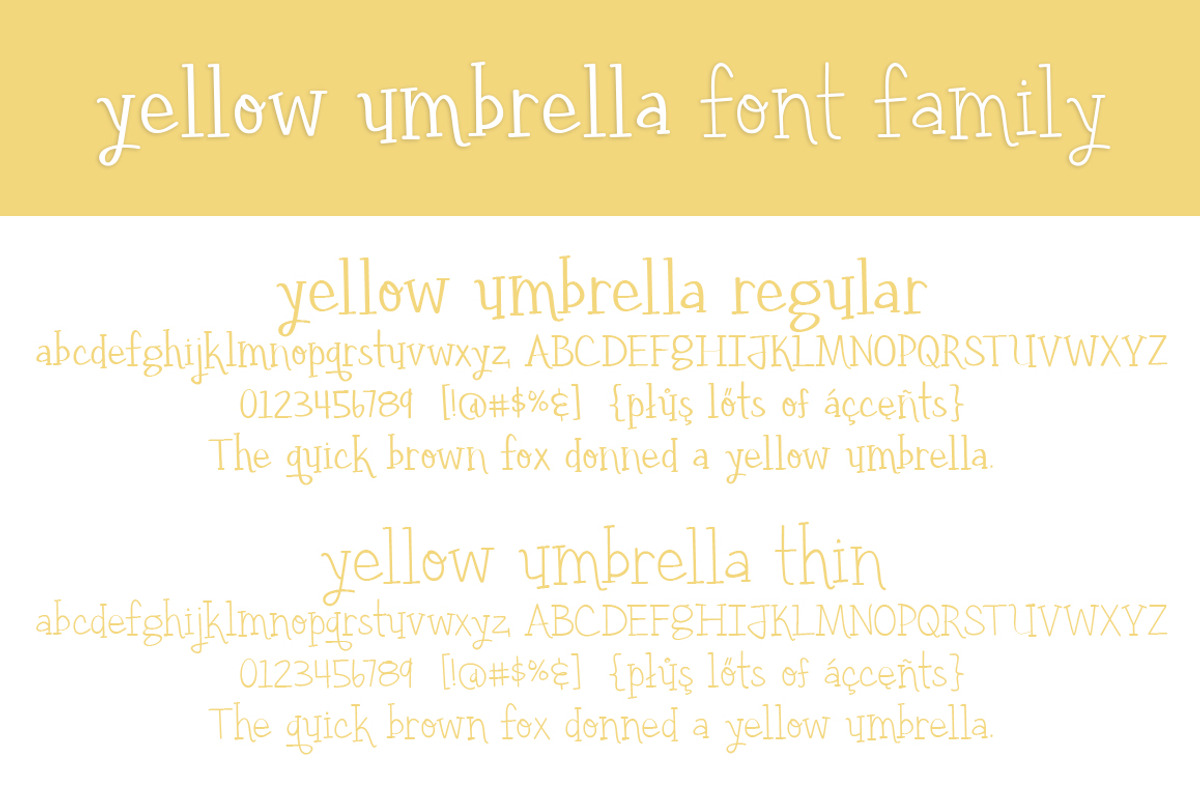
Yellow Umbrella Font Family
Yellow Umbrella Font Family by Brittney Murphy Design is a font selected for branding, posters, packaging, typography.
- Includes the regular version and a thin weight.
Why Yellow Umbrella Font Family is worth a look
Yellow Umbrella Font Family by Brittney Murphy Design fits naturally into Branding, posters, packaging, typography.